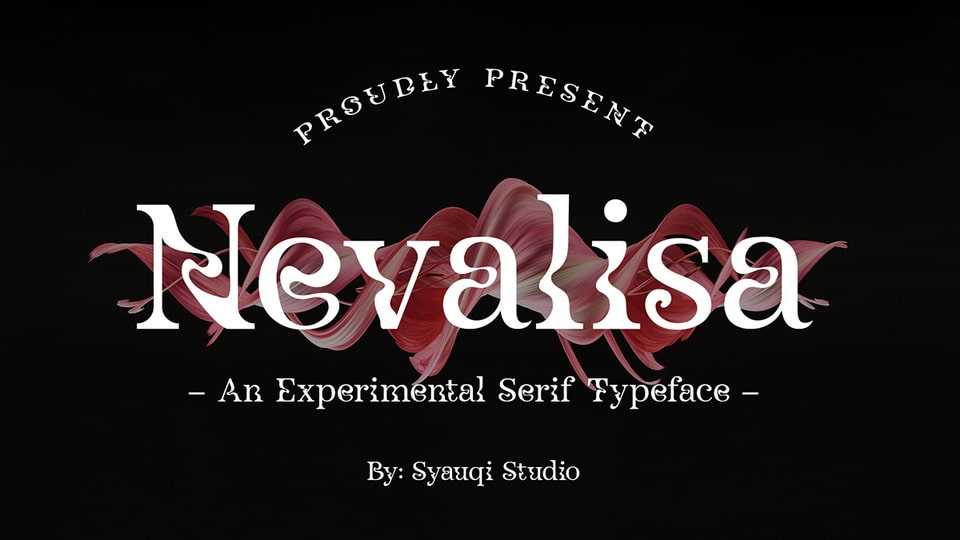
Download Nevalisa font, an experimental serif typeface pushes the boundaries of traditional typography, dynamic serifs with elegant, refined letterforms.
Designer: Syauqi Studio